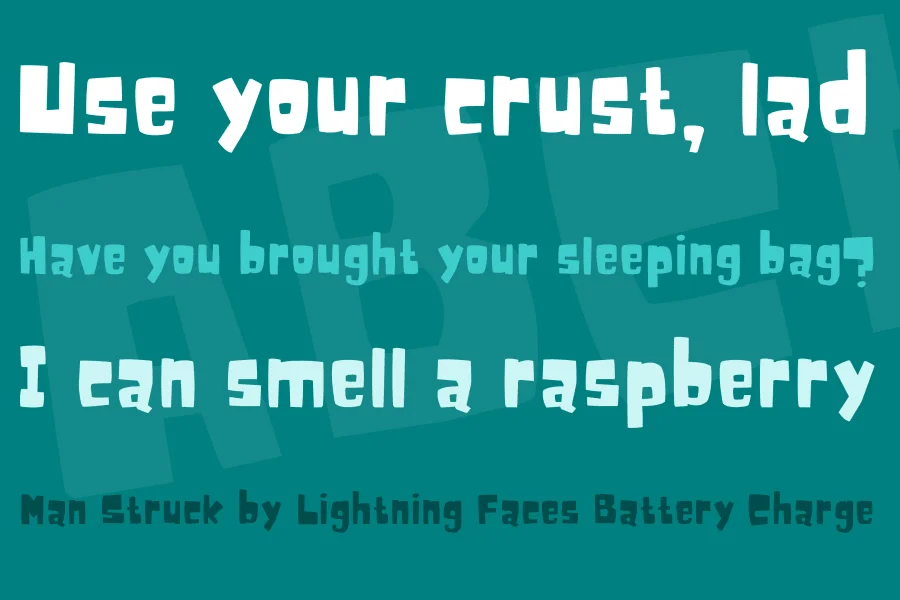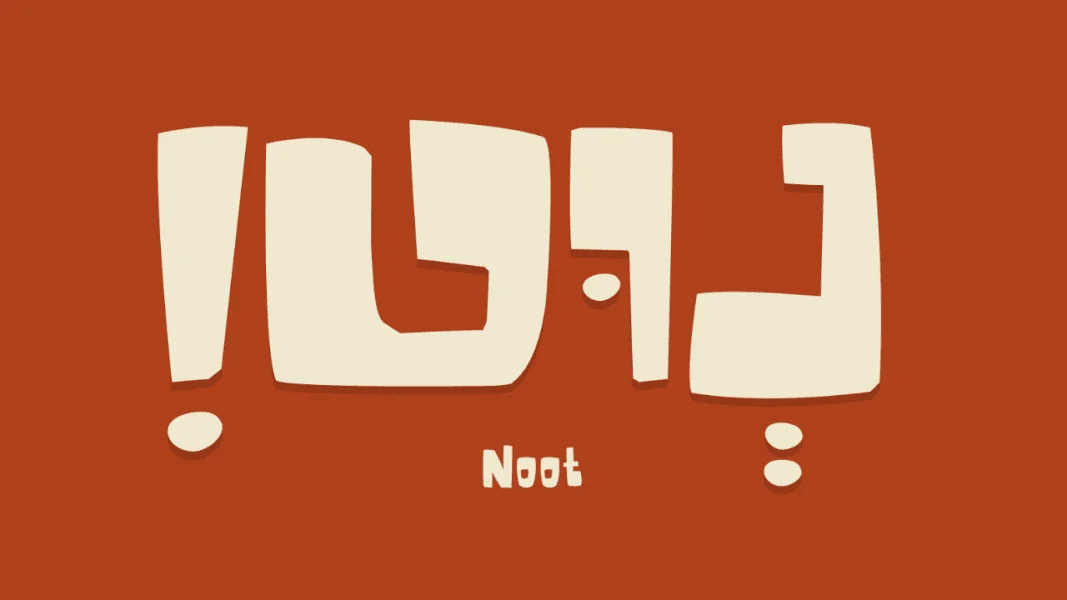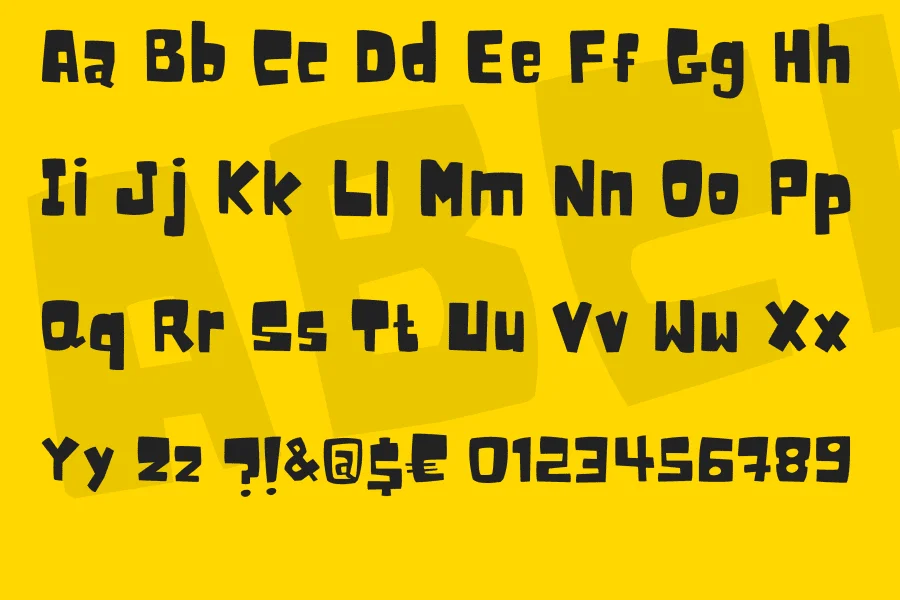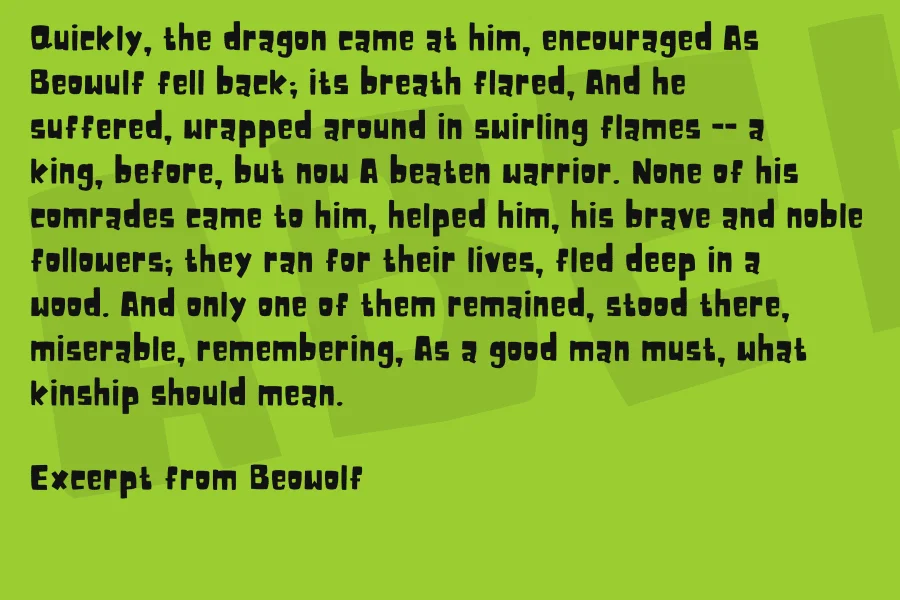
Noot is a Bi-lingual font (Hebrew & English). The name is an anagram of the word Toon. As such, it was designed to be used in a humorous context. The lack of X height provide the characters funny look and feel. Designed as part of a final project at Shenkar College of Engineering and Design, 2012.
במסגרת פרויקט גמר בשנקר מ-2012 יצרתי פונט שמתכתב עם אנימציות שנעשו ב-Cartoon Network, יש אותיות מנוקדות בעברית וגם באנגלית וככל שהאותיות "רוקדות" על הבייסליין כך טוב לו, פה זה המקום לתמוך בפרויקט.
נוט הספיק להגיע לדיסני+ (עידן הקרח), ערוצי יוטיוב שונים כגון משפחת טרסוב, מיכל הקטנה והמפלצות ועוד.